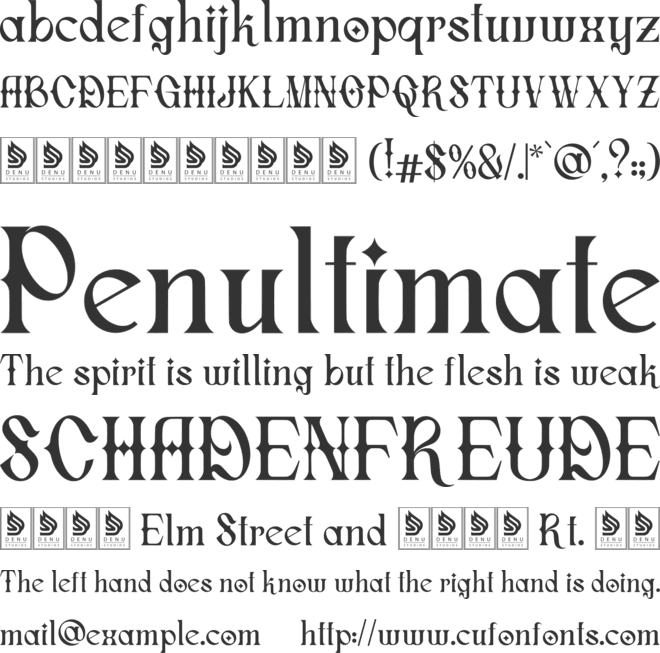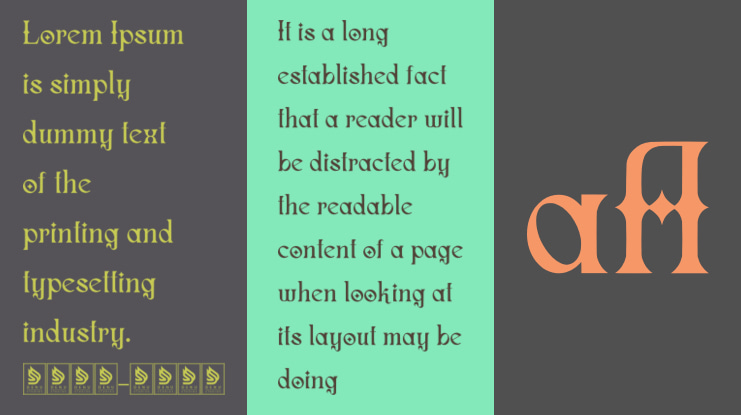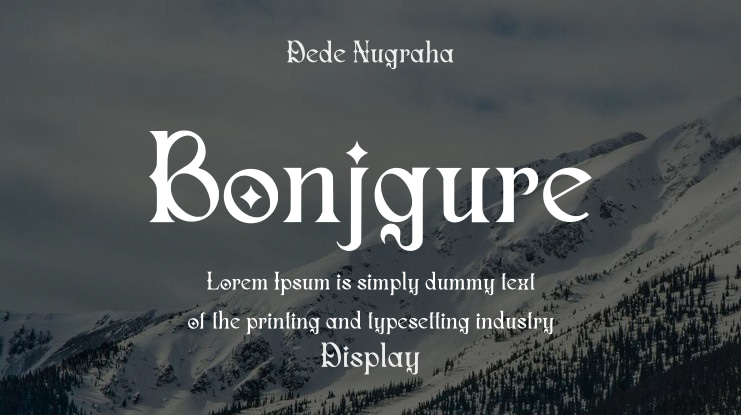
Dede Nugraha
Bonjgure | Modern Display Serif product packaging, mugs, quotes, posters, shopping bags, t-shirts, book covers, name card, invitation cards, greeting cards, label, photography, watermark, special events, and all your other lovely projects that need a Serif font taste.